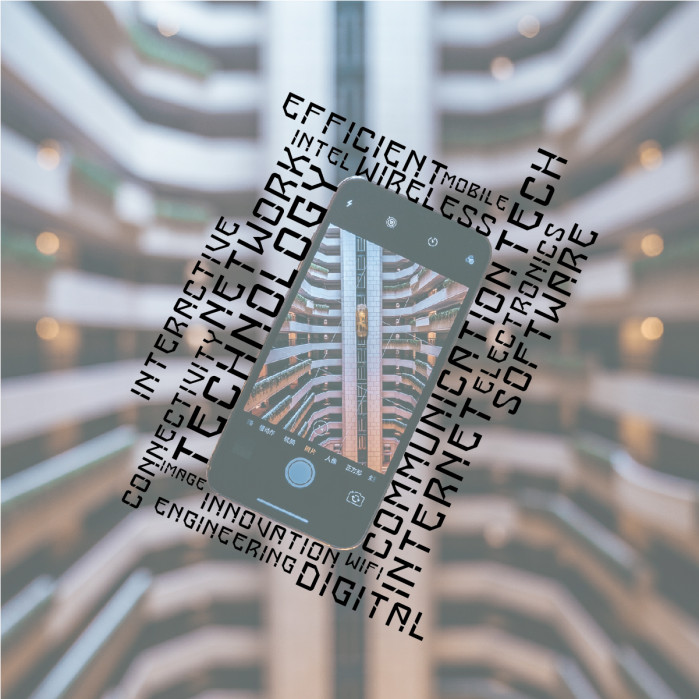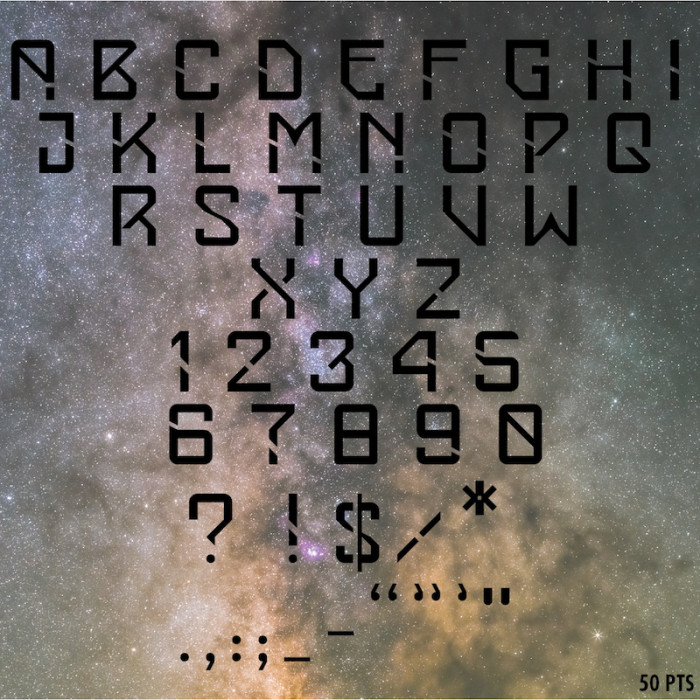
This design was inspired by futuristic/space letters.
The round letters have a smooth outter edge while the inside still has it's sharp corners. The bits missing in the letters give it a separation and playful look.